One of the many graphic design trends this year is psychedelic fonts have come to our site. The choice of this font is considerable, so we decided to select the best ones, focusing on your modern design project.
All these curious psychedelic fonts has been crafted by professional designers and has the best quality no matter it is free or premium font. You can use it perfectly to your designs such as posters, covers, logos, t-shirt designs and more other great stuff. Keep a good mood and enjoy.
What is a Psychedelic Font?
A psychedelic font takes you straight to the 1960s, with its abstract, swirling patterns, and very loud colors. These iconic styles are not only evocative of hippie counterculture and classic rock music, but they also represent opportunities for experimentation. Once used for print ads and posters, psychedelic letterforms add a refreshing twist to modern-day design..
Moon Shine
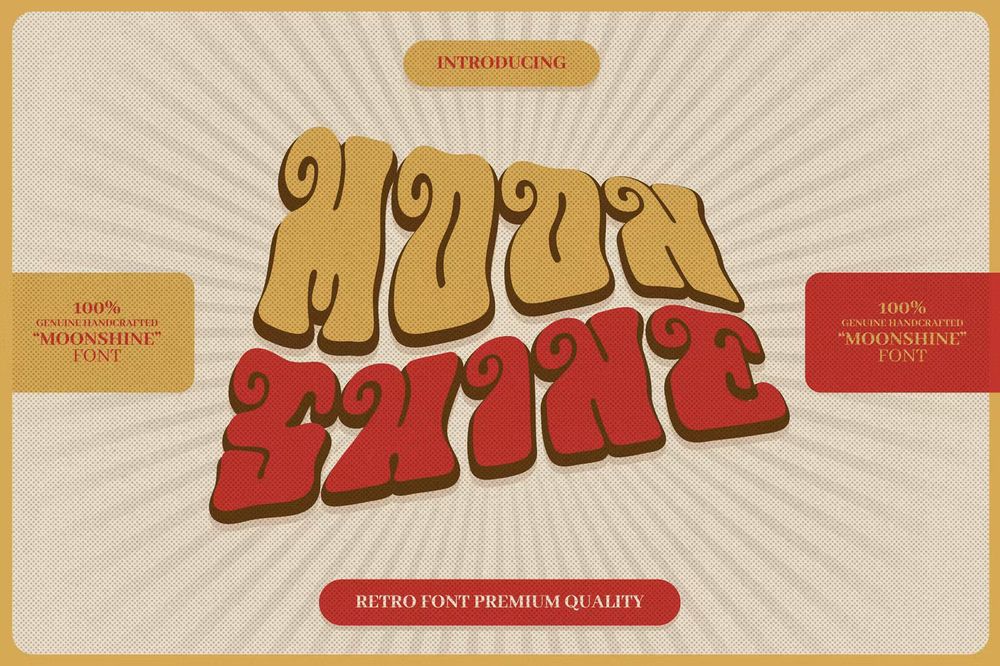
It is a vintage retro funk font. Perfectly suitable to use for many occasion such as invitations, banners, movie titles, brand, events and etc.
Viva Kaiva
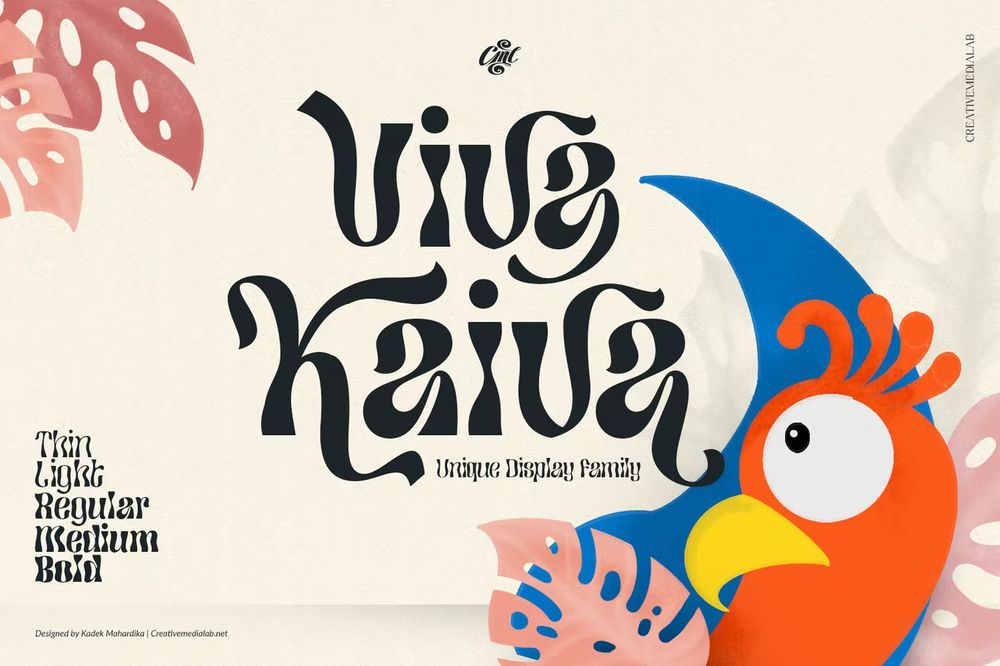
It is one of our unique fonts with a psychedelic touch. Best option for creating a unique titles for your Illustrations, display designs, posters, branding projects and etc.
Janger
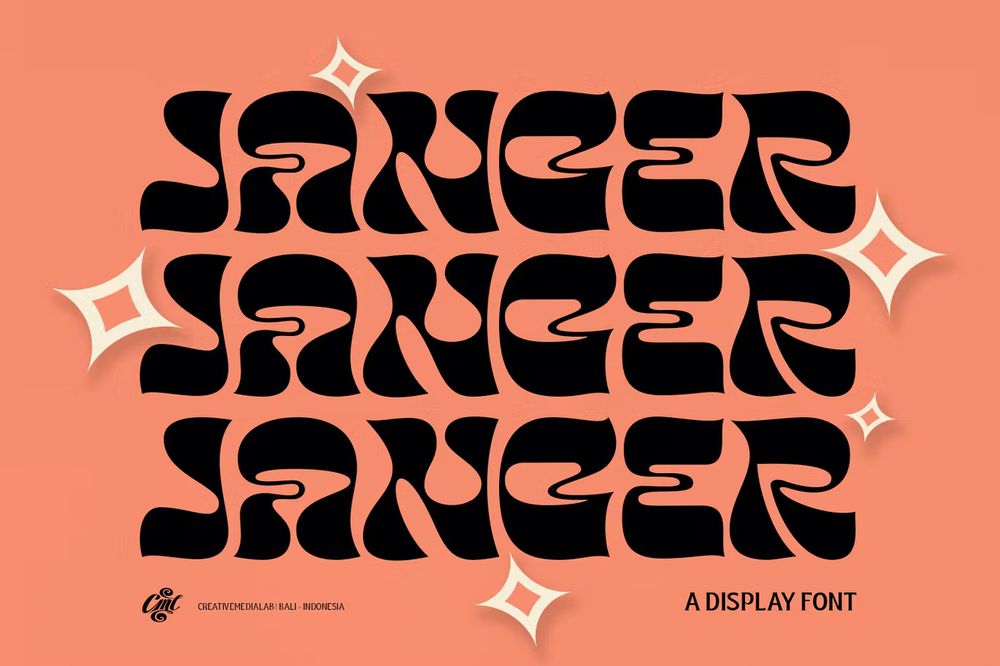
It features a reverse contrast style with a retro and psychedelic look that’s simply ideal for design such as posters, t-shirts, branding, logo and etc.
Vertistyle Waves
It is a psychedelic font with good style includes uppercase letters, numerals, a large range of punctuation and multilingual support. Perfect for your logos, posters, pouch bag designs, labels stickers, branding and etc.
Karma Smoke
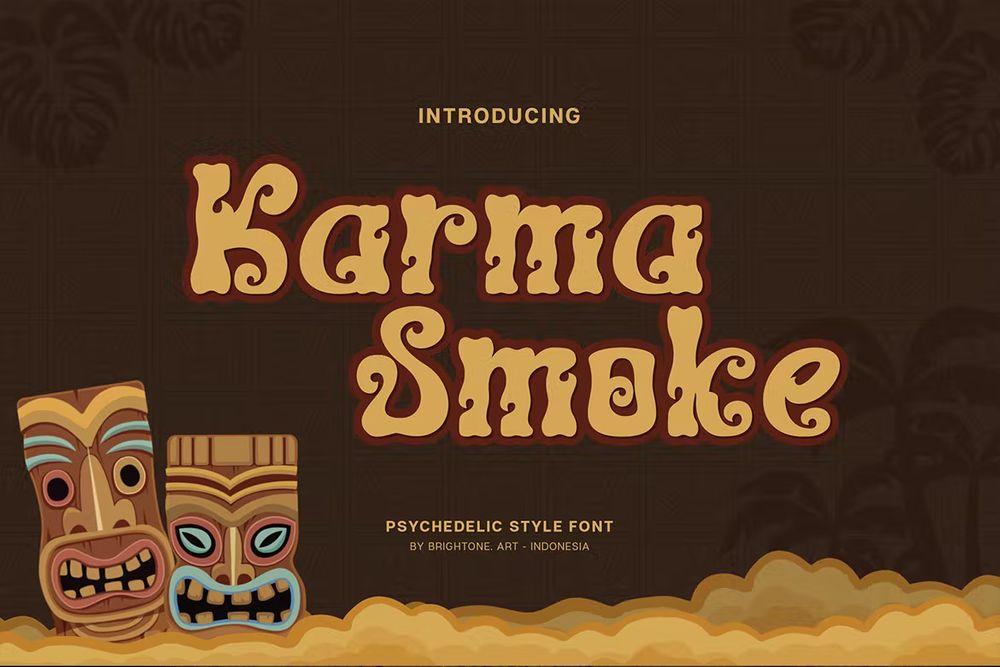
It is a psychedelic font with good style includes uppercase letters, numerals, a large range of punctuation and multilingual support. Best for your strain logos, sticker designs, pouch bag designs, labels, stickers, branding and etc.
Claycozoa
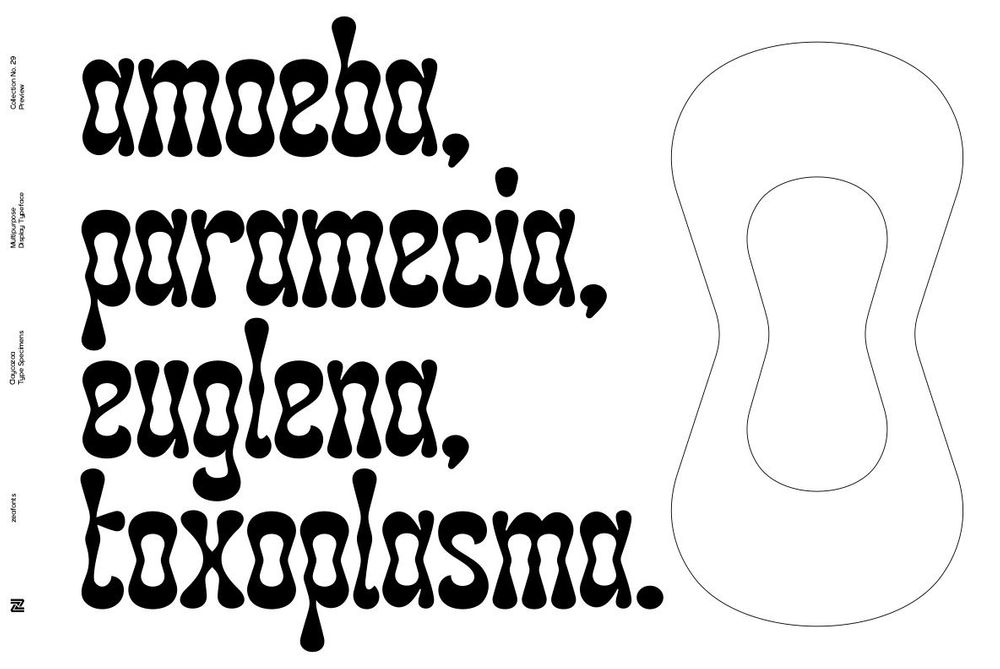
It is a versatile, bold and unique display font. Great for posters, flyers, apparel, quotes, greeting cards, product packaging and etc.
Euphoria Party
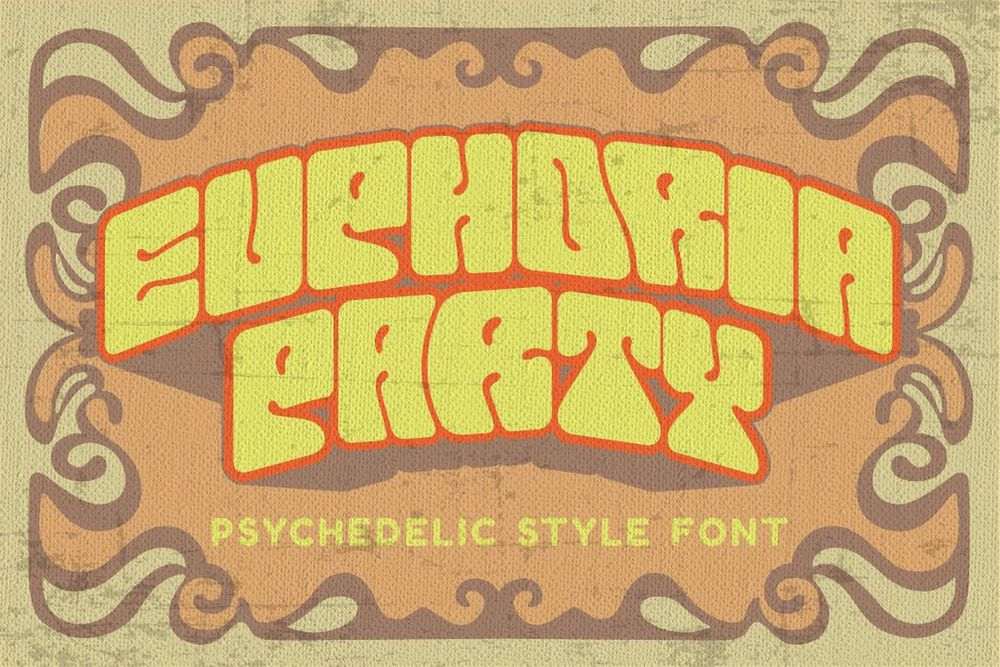
It is a psychedelic style font. Great for any kind of display purpose from albums, covers, posters, labels, t-shirts, apparel, signages, quotes, logos, greeting cards and etc.
Antikern
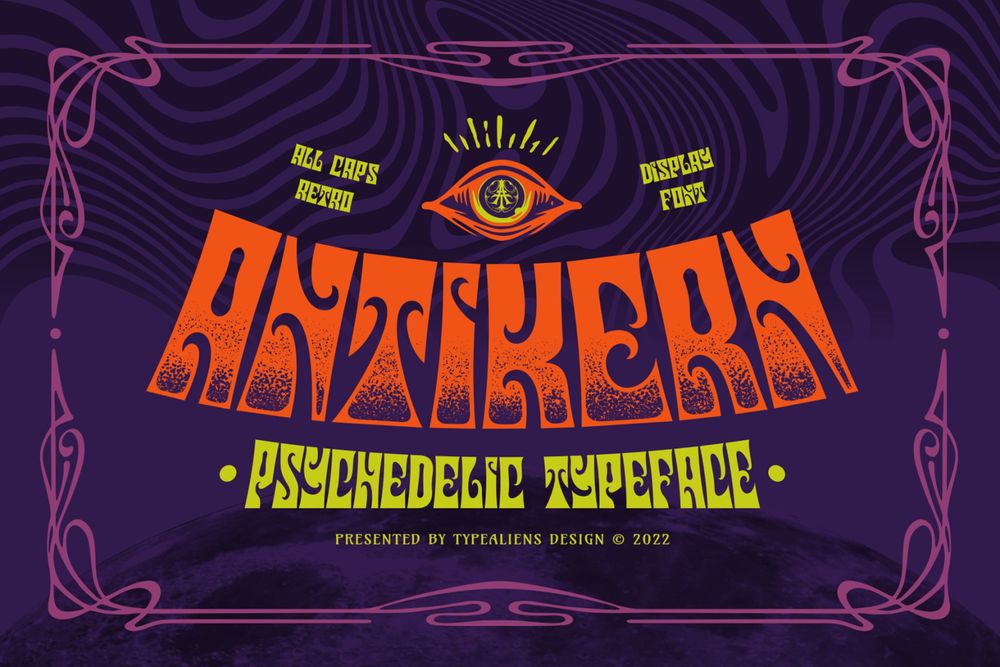
It is an all caps font with psychedelic style. The unique font is perfect for a music poster design or for fashion branding.
Kaifiya
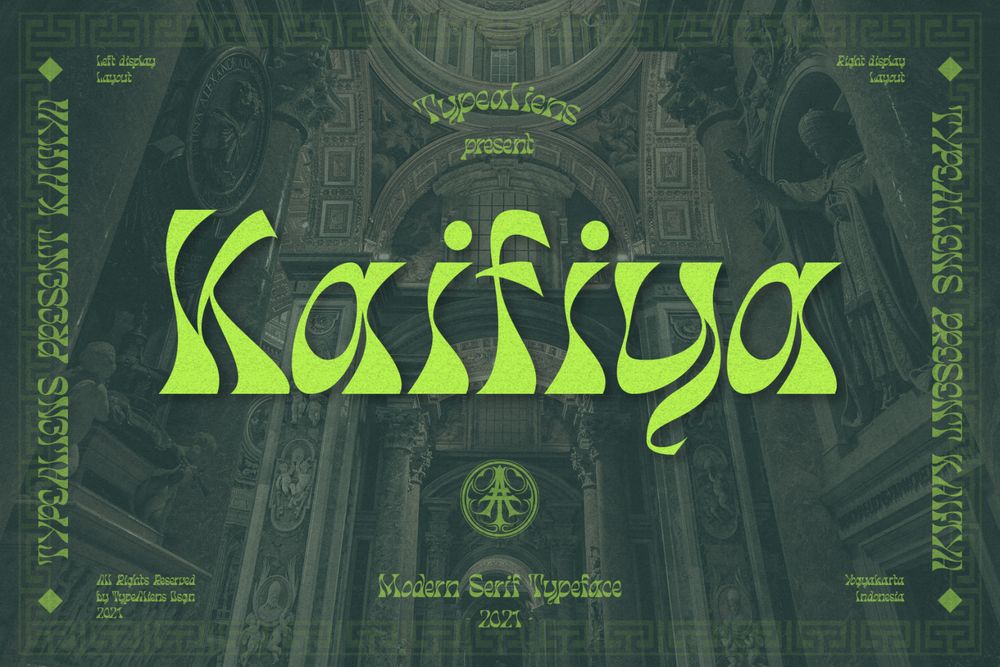
It is a display font with a modern psychedelic style. A font that also has a bit of a classic feel so it’s quite unique to support your modern design.
Daydream
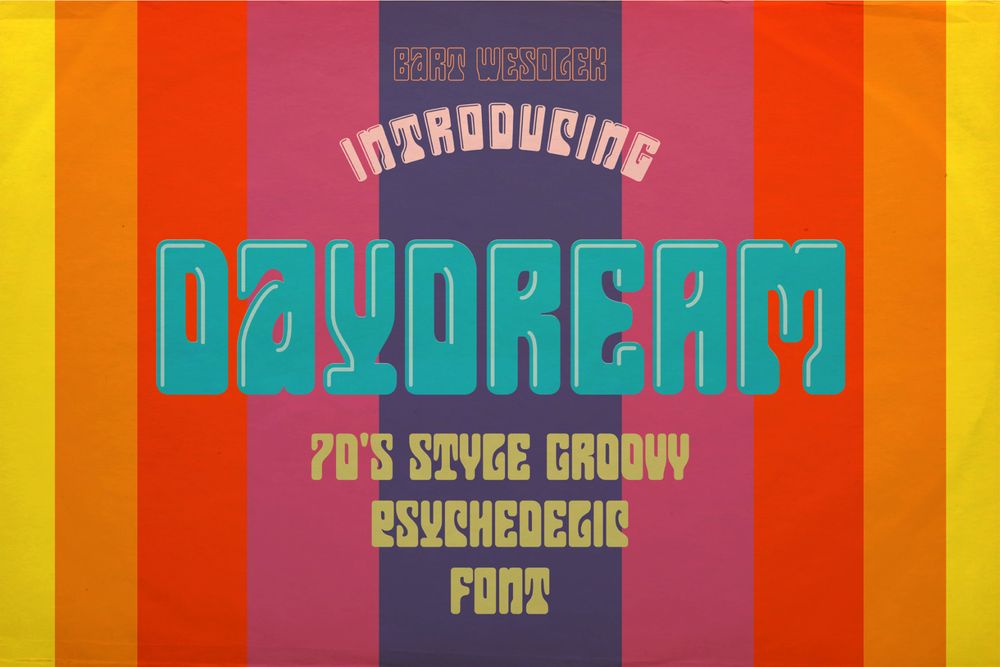
It is a psychedelic font based on retro typeface Dreamline from 1969. Its groovy and psychedelic style fits perfectly with contemporary trends. Great for socials brandings, labels, letterings, logos and etc.
JMH Psychedelic (Free)
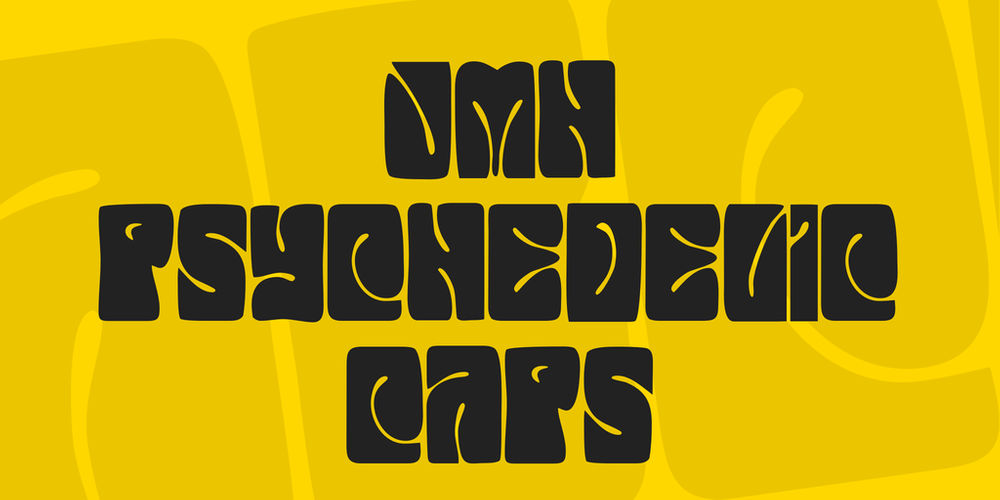
Art Nuvo (Free)
Glassure
It is an experimental typeface that is inspired by every pull and curl in the process of making glass sculptures. Perfect for packaging, branding, posters, flyers, greeting cards and etc.
Meshroom (Free)
An creative and modern psychedelic font free for personal use only. Best for arts, posters, flyers, packaging and etc.
Surreal
It is a hand drawn psychedelic font perfect for groovy posters, experimental artwork, and rad design projects. It was inspired by the psychedelic movement of the mid 60’s.
Giuthen
Modern psychedelic black display sans serif font. Perfect for logo branding, editorial design, vintage or retro posters, stationery designs, fashion, sport and game design.
Milky Berly
A bold stylish font, Inspiring from playful quirky style typography. Suitable for book covers, children books, comic, posters, packaging, merchandise, logotypes and etc.
Mamenchisa
A beautiful psychedelic display Font perfectly suits for logos and titles.
Lastone
It is a new psychedelic style sans serif font. Perfect for titles, display designs, book covers, children designs, t-shirts and etc.
Klemer
A typeface inspired by the psychedelic effect and simplified even more. Great for poster designs, logos, or vintage and modern design themes.
Fontanio